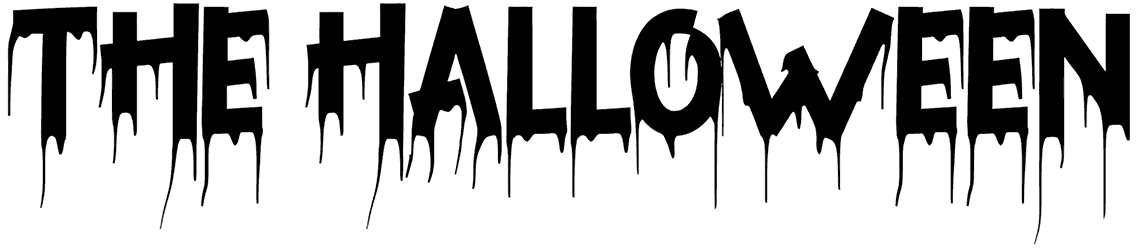
The Halloween Font
The Halloween is a very graphic, dripping font that can convey both a serious and a scary theme due to having two styles of capital letters. For this reason, it looks entertaining for printed writings, greeting cards, and advertisements, and the combination of these two styles effectively covers the lack of small letters and numbers.
So if you are looking for the easiest way to make your horror projects more beautiful, we suggest this Halloween font.